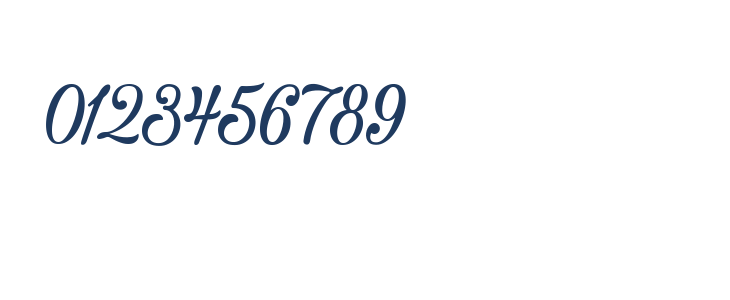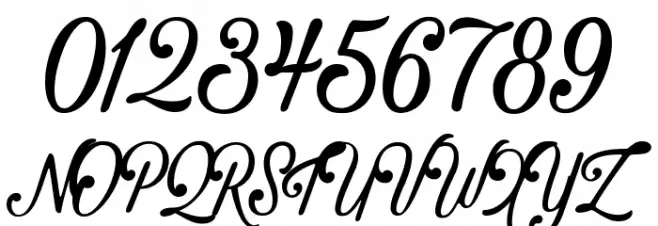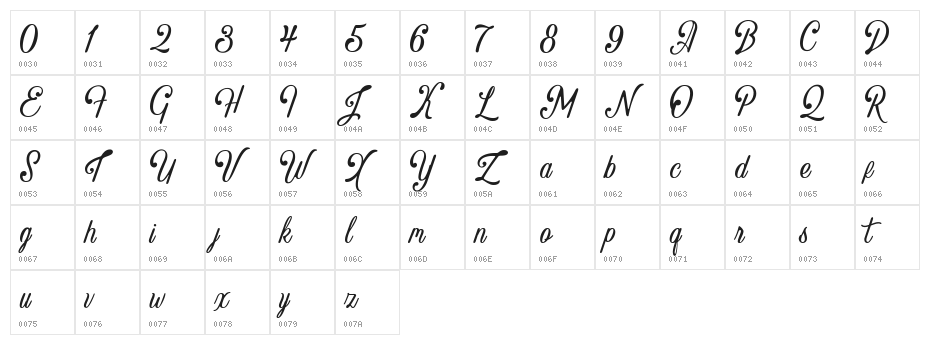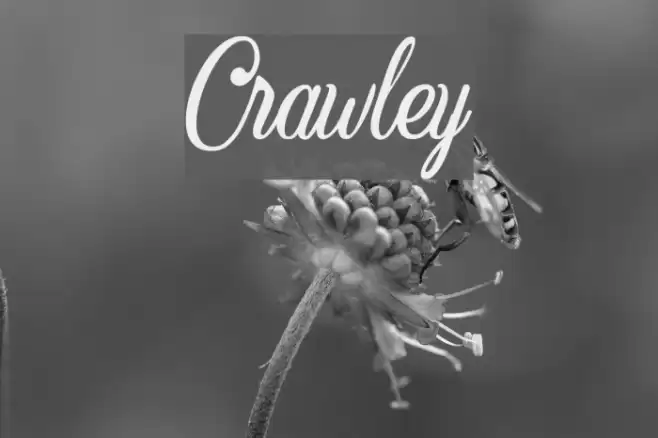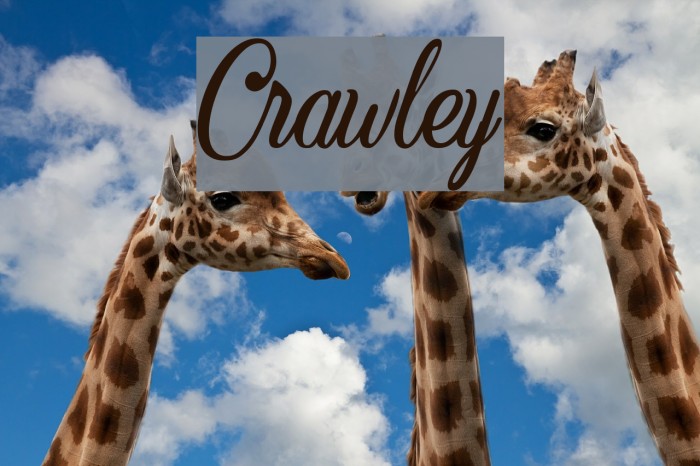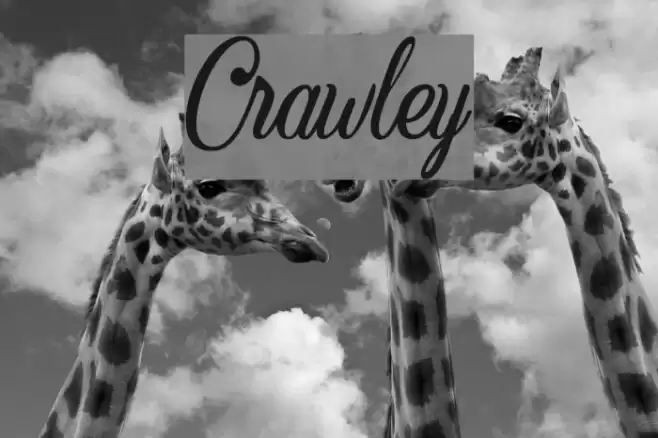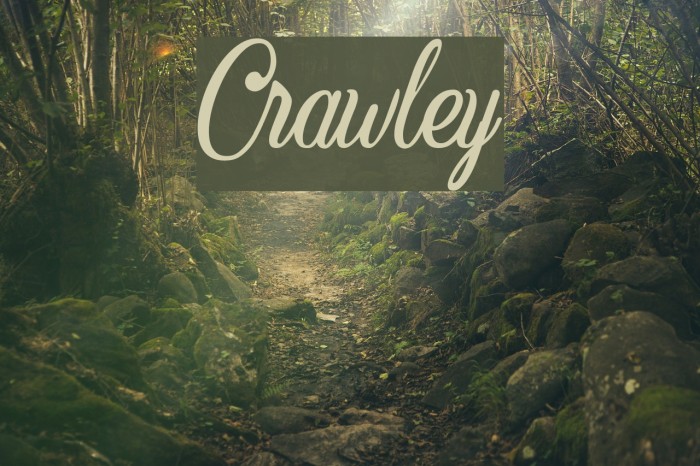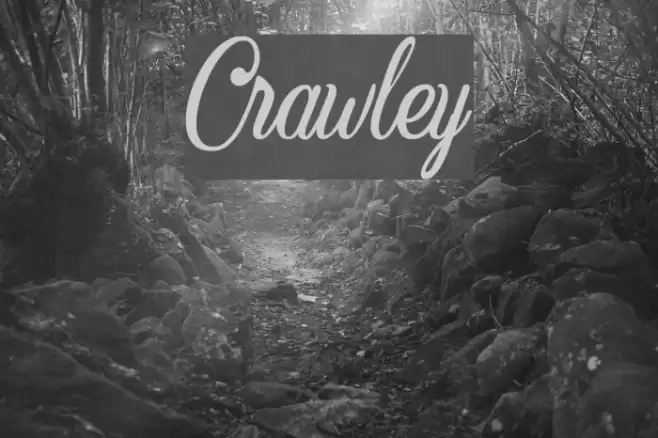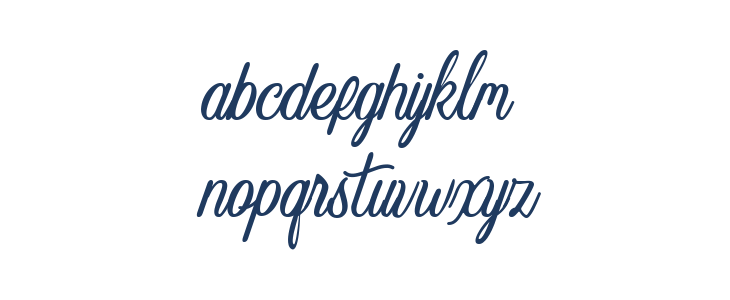
Crawley Font
Crawley Description
This elegant script font features flowing, cursive letters with a classic and sophisticated style. The uppercase letters are adorned with graceful loops and swirls, giving them a decorative flair. The lowercase letters maintain a smooth and connected appearance, enhancing readability while retaining an artistic touch. The numerals are designed with a similar fluidity, ensuring consistency across all characters. This font is perfect for projects that require a touch of elegance and refinement, such as wedding invitations, formal event programs, or luxury brand logos.
| Overall Style | Elegant, Classic |
| Proposed Projects | Ideal for wedding invitations, formal event programs, luxury brand logos, and elegant stationery. |